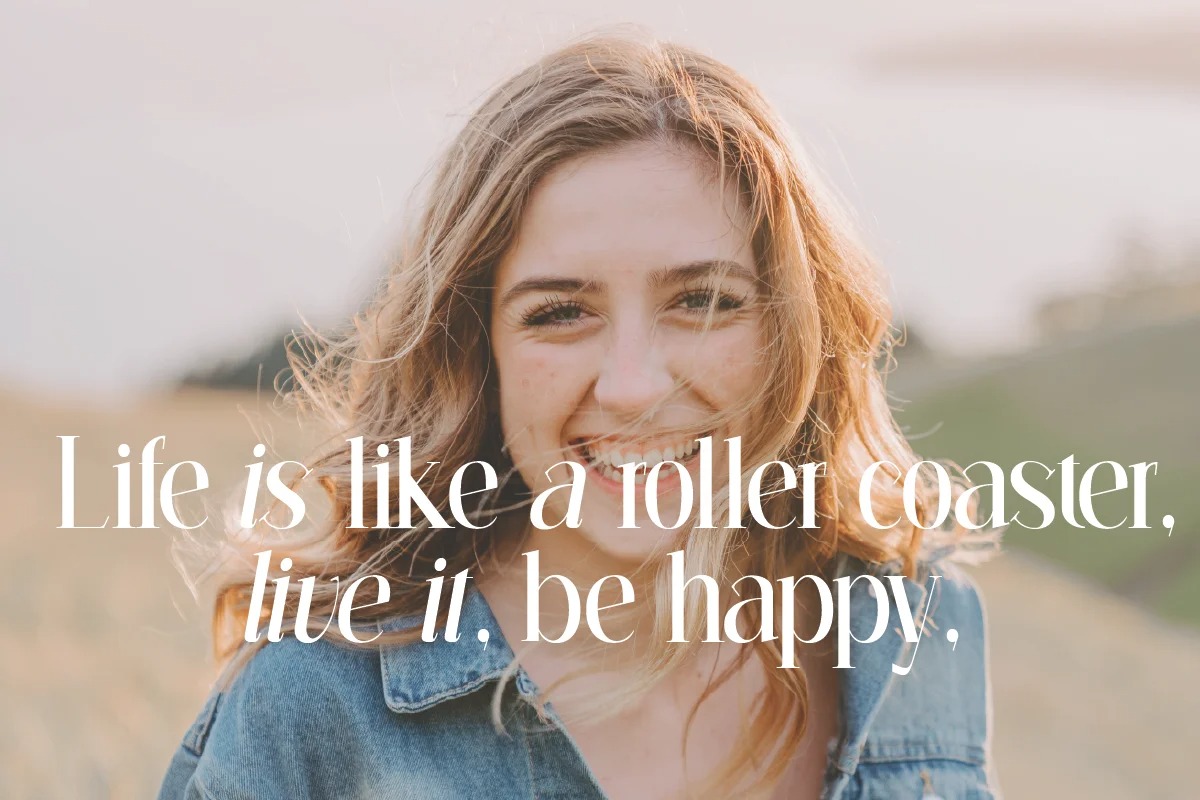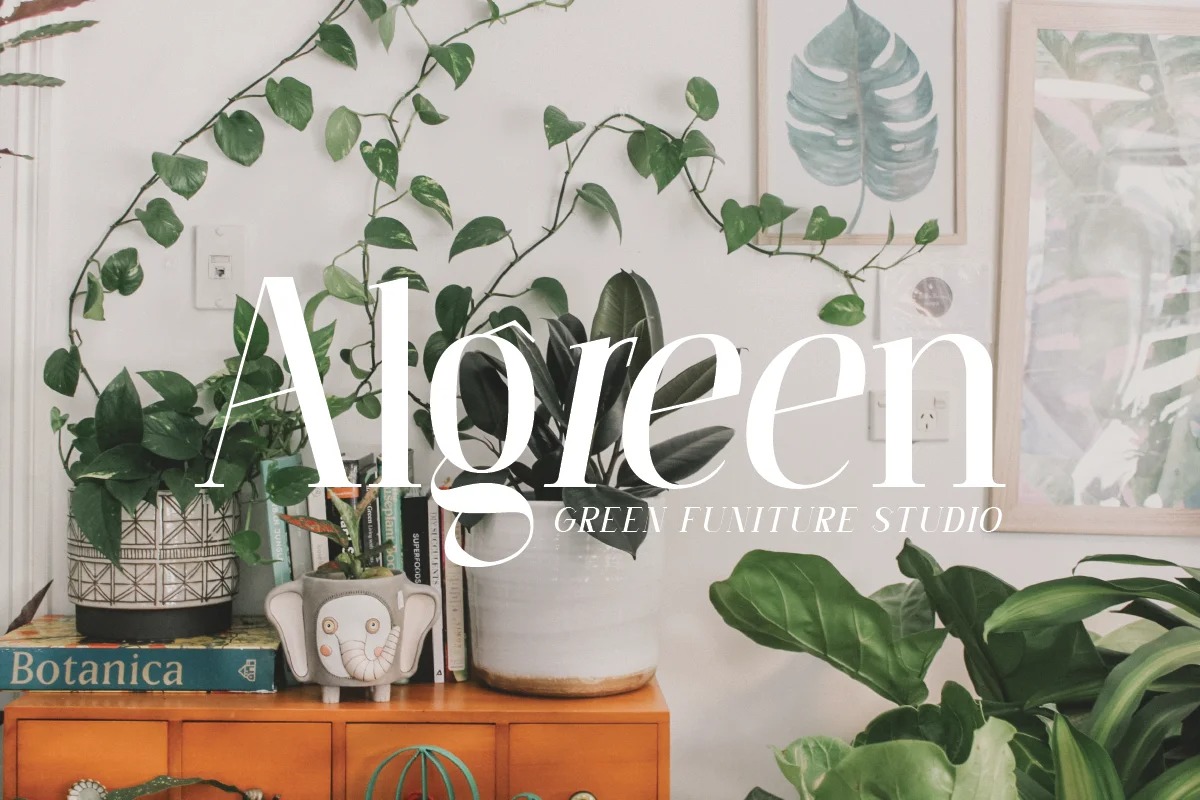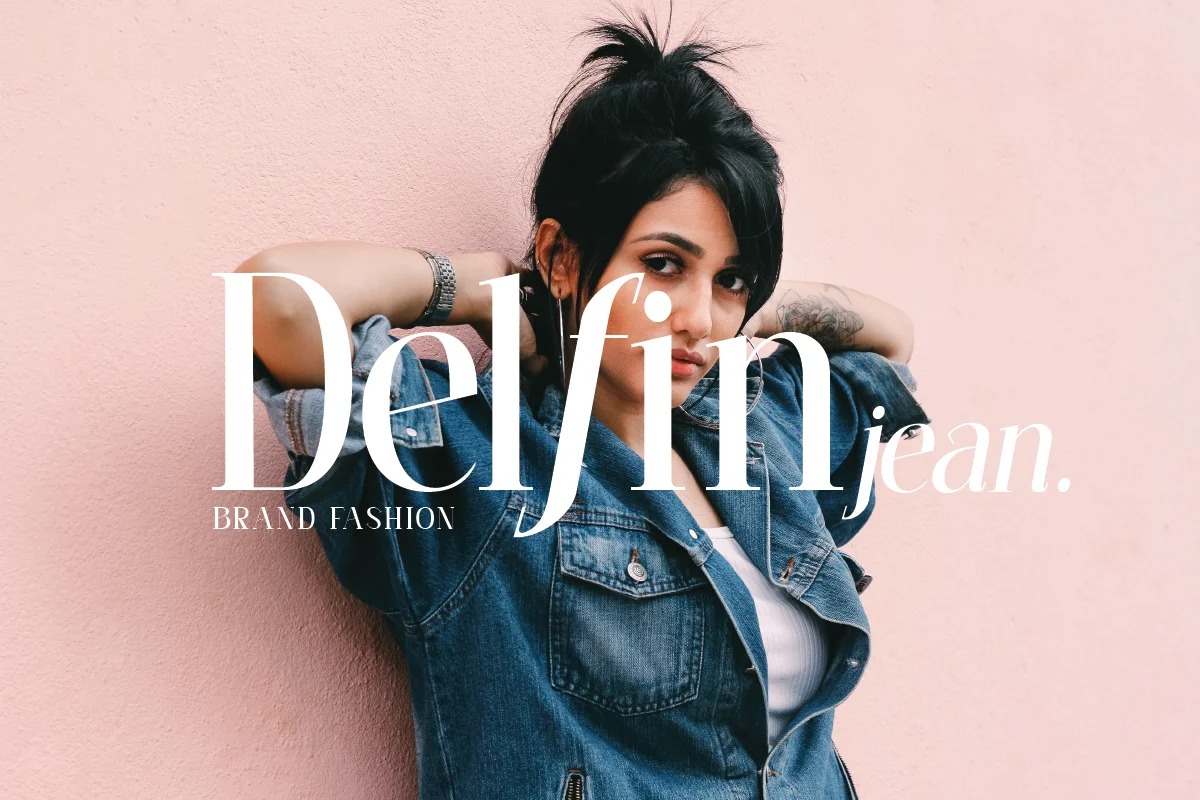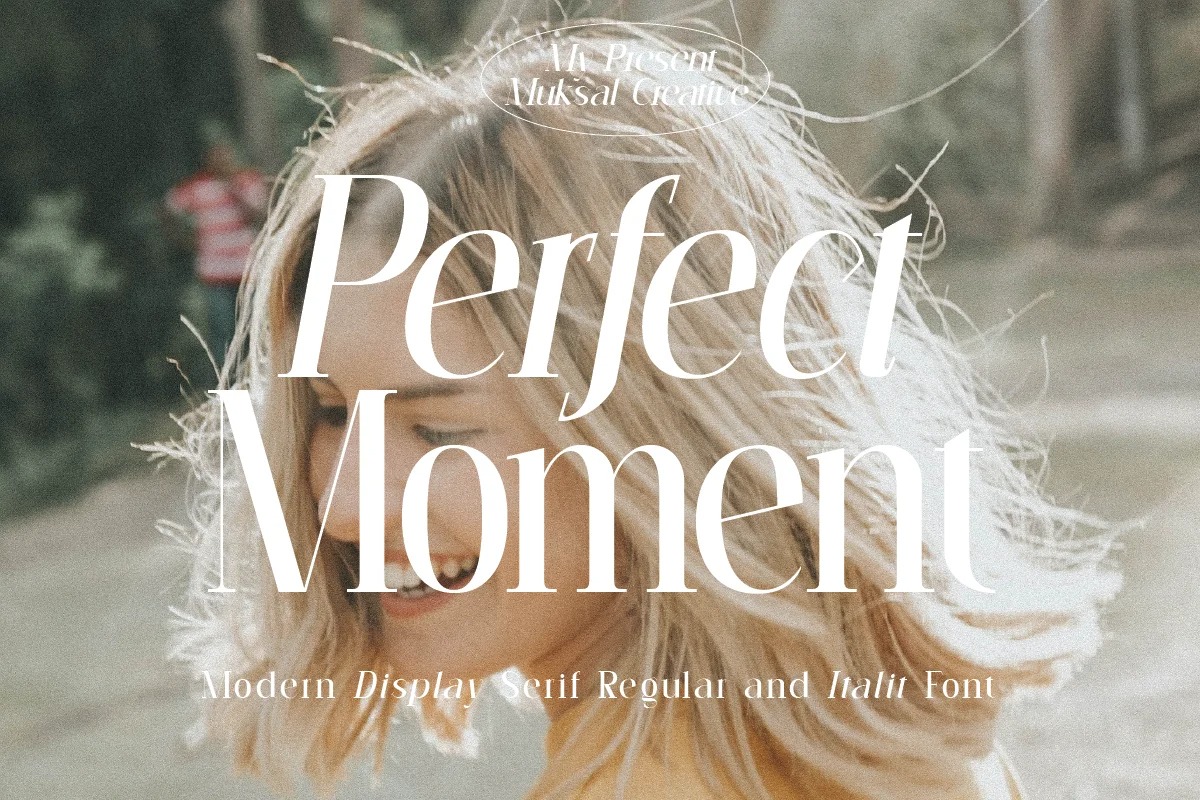
Perfect Moment Serif Font is a condensed modern display typeface with serif style. Made from font designer named Muksal Creative. It’s a very versatile font that works great in large and small sizes. Perfect for editorial projects, Logo design, Clothing Branding, product packaging, magazine headers, or simply as a stylish text overlay to any background image.